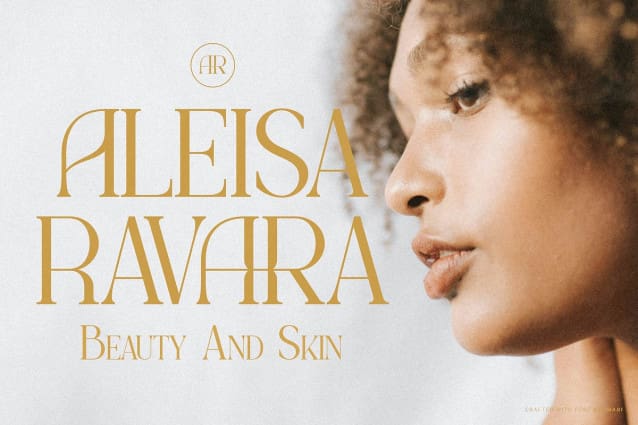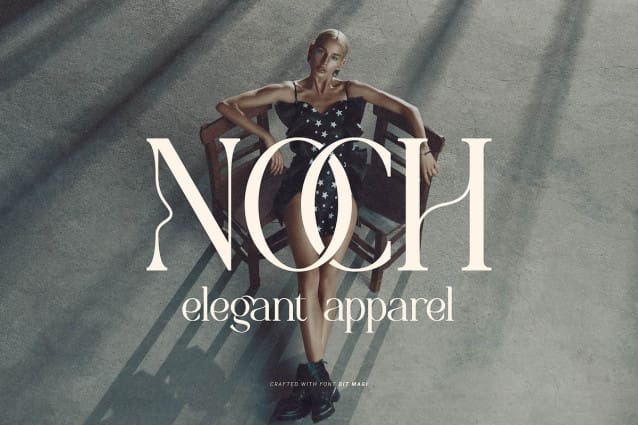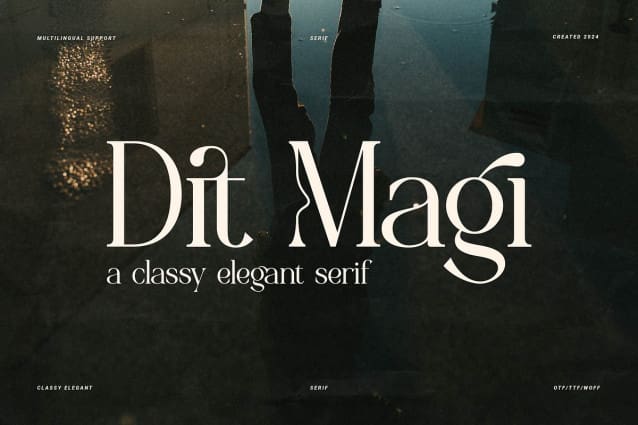
Dit Magi Font
Dit Magi Font | Classy Elegant Serif, from Denustudios, suitable for any projects such as: logos, branding projects, homeware designs, product packaging, mugs, quotes, posters, shopping bags, t-shirts, book covers, name card, invitation cards, greeting cards, label, photography, watermark, special events, and all your other lovely projects that need a Classy Elegant Serif taste.